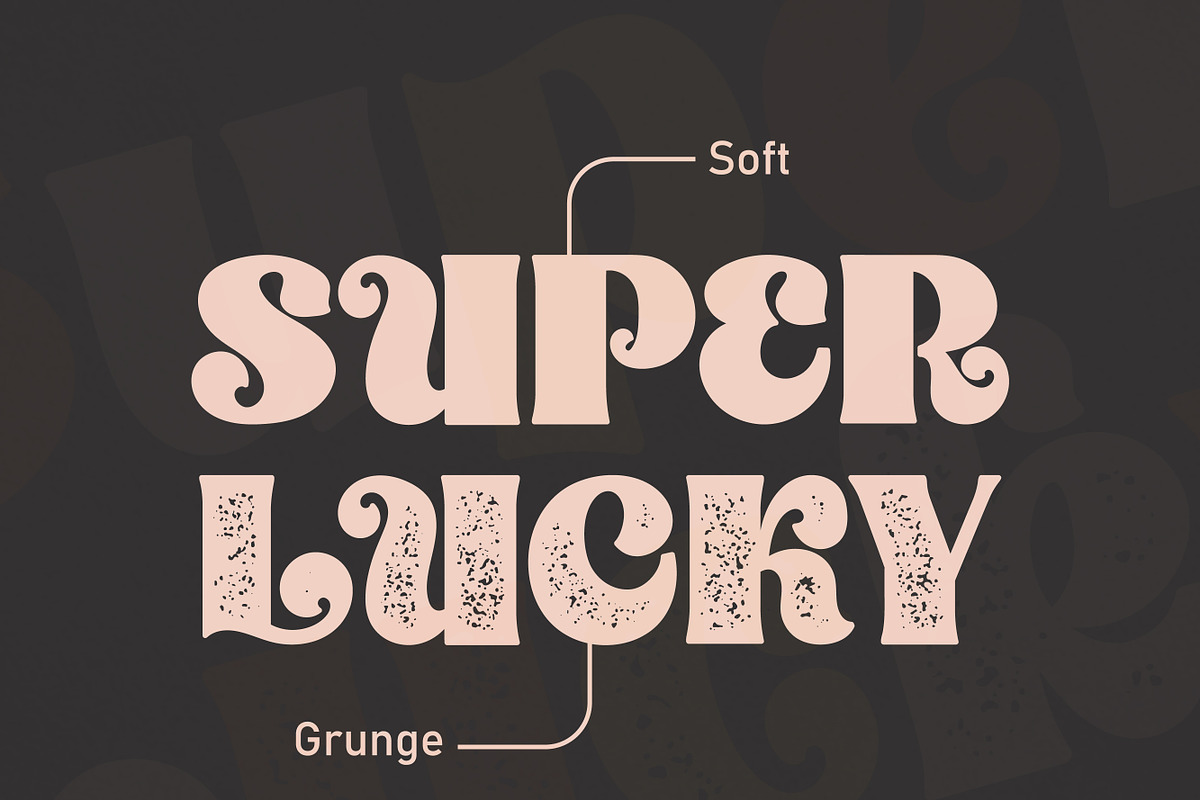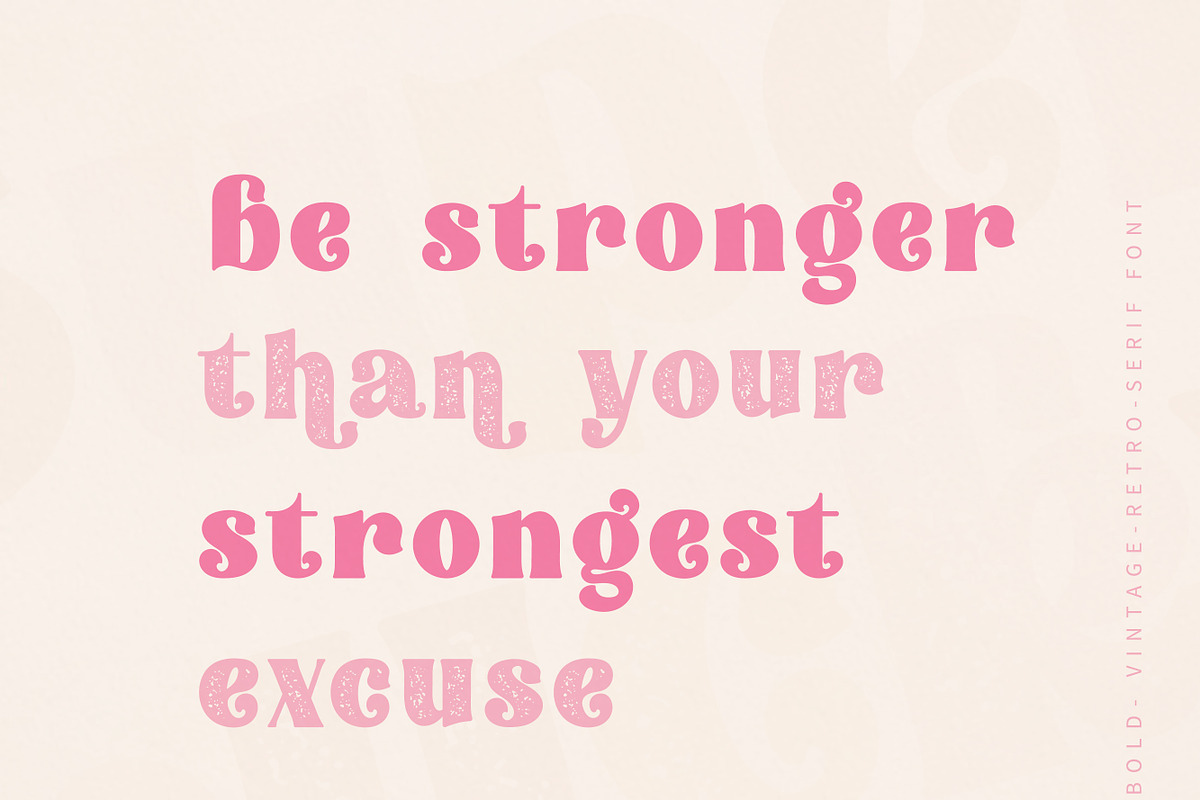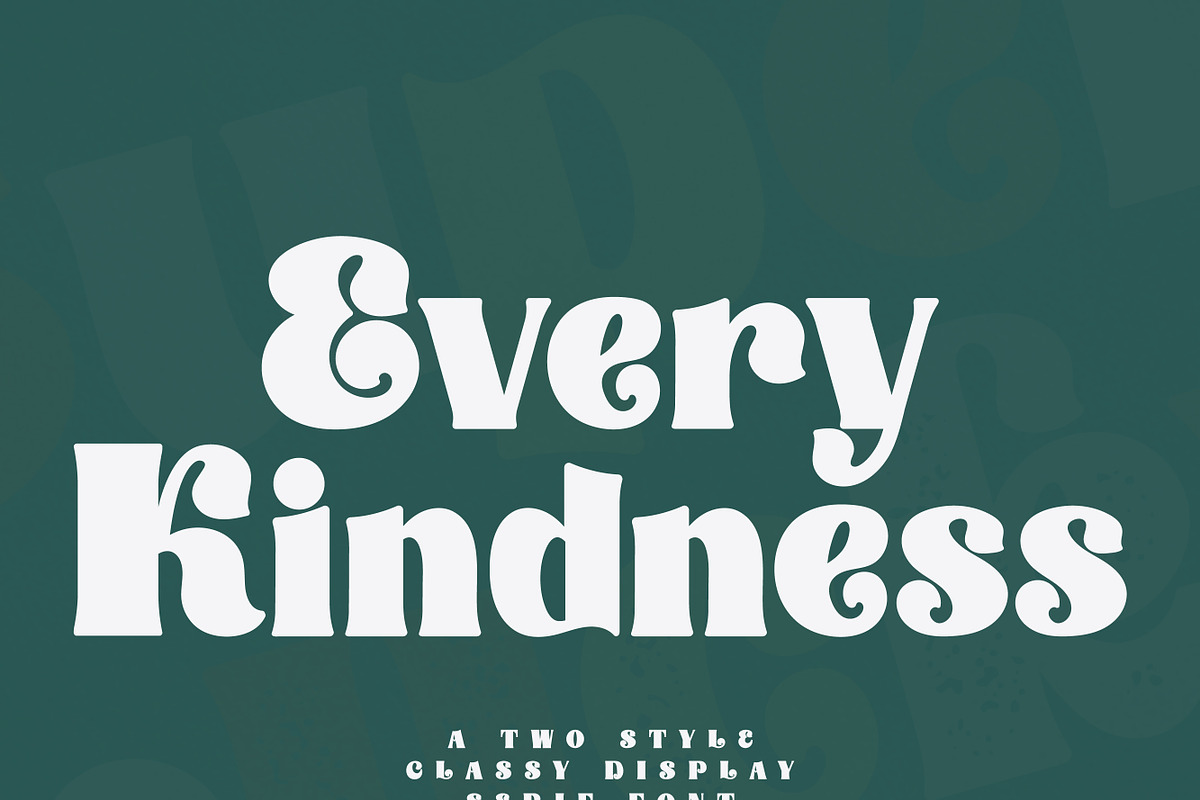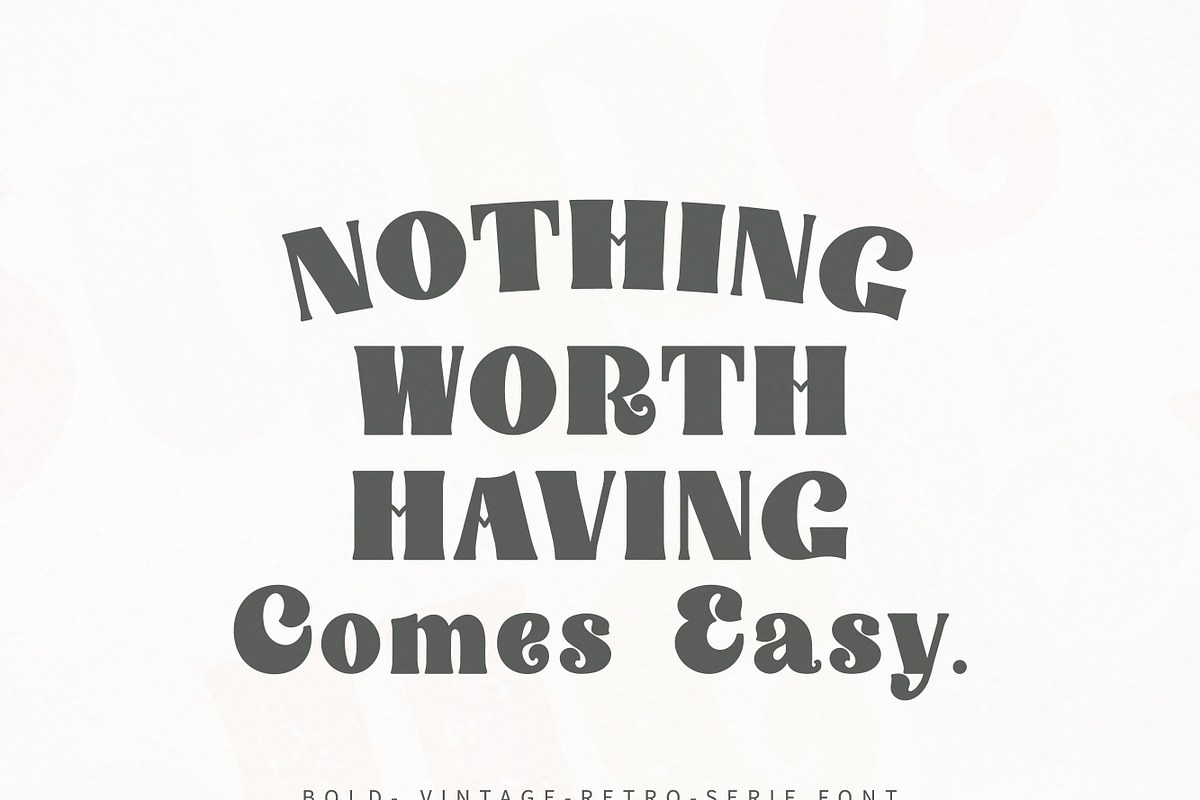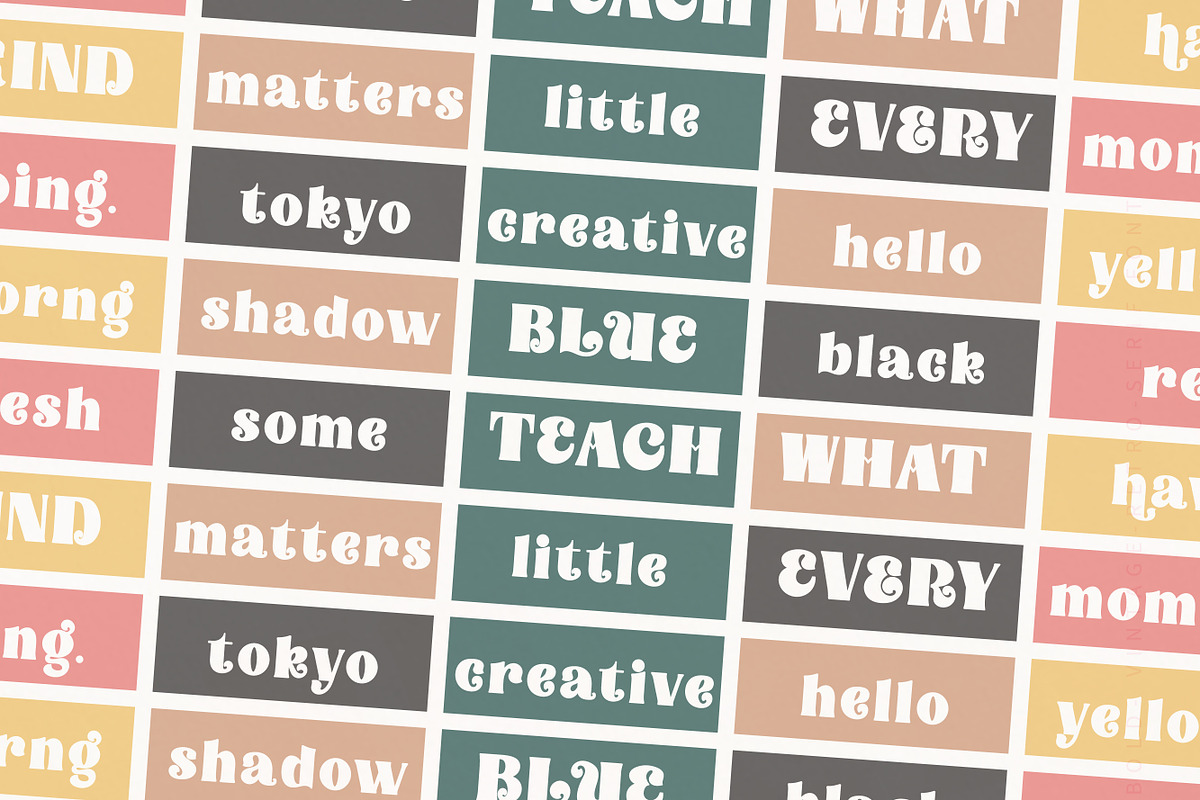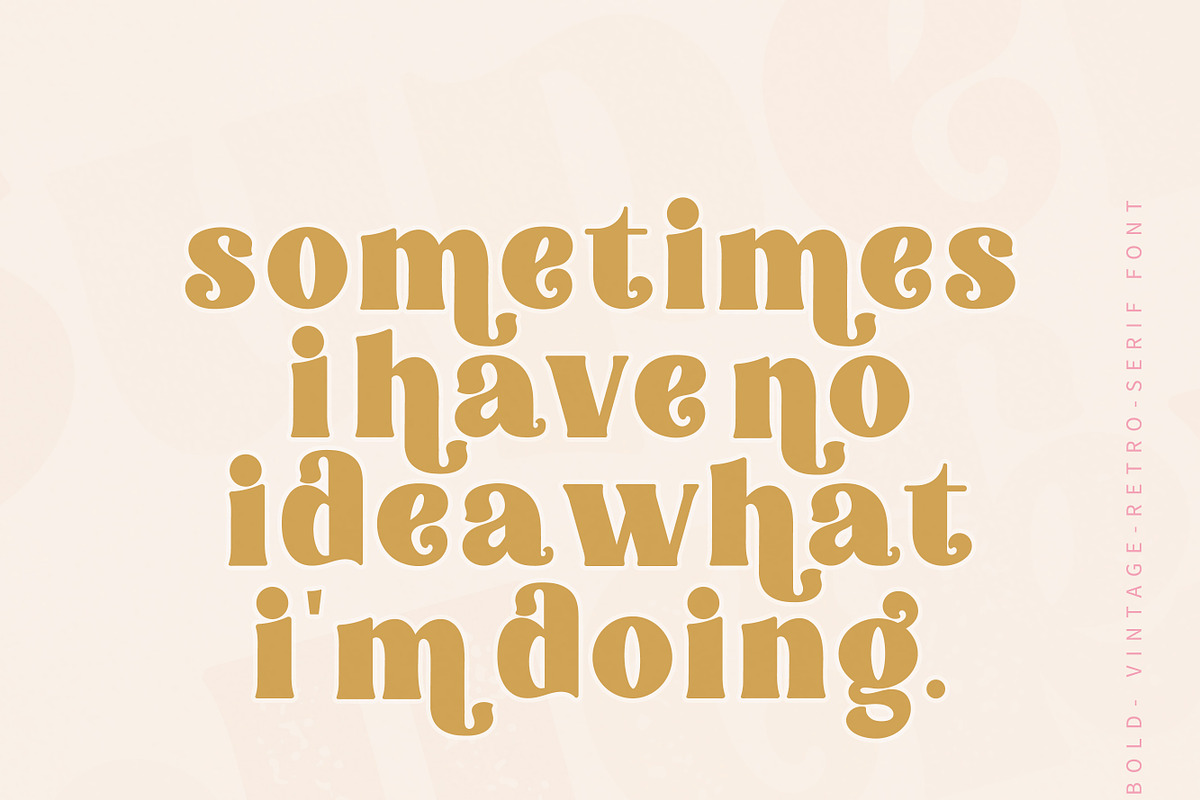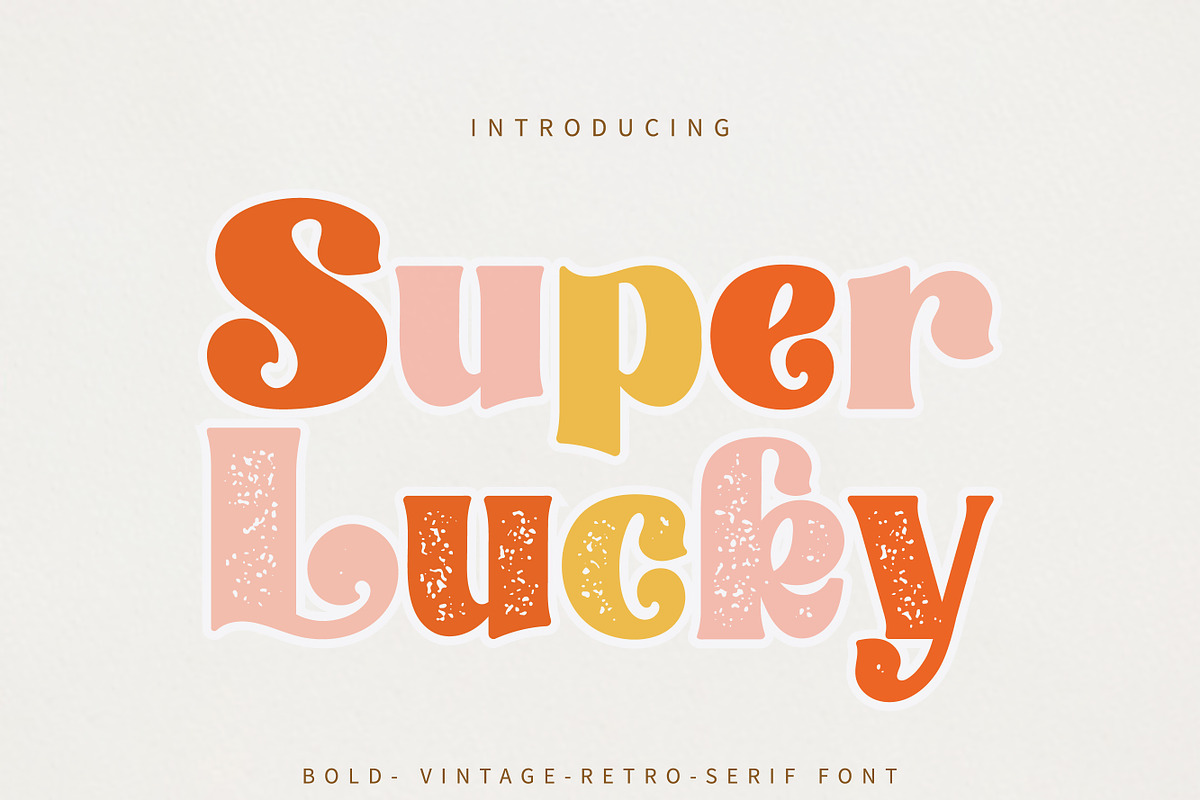
Super Lucky
Super Lucky is a modern, clean and smooth vintage retro font style. Use this display modern font to add that special retro touch to any unique design idea where you can use. this font has the potential to bring each of your creative ideas to the highest level! two font style soft and grunge every corner is smoother.